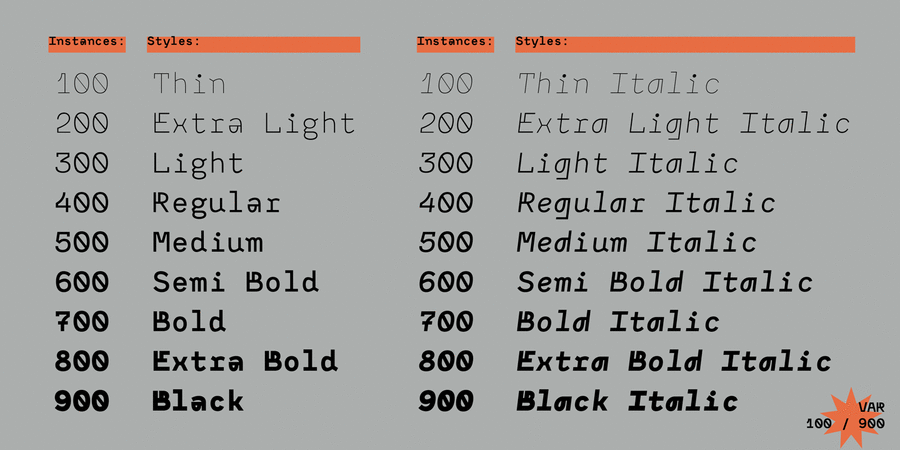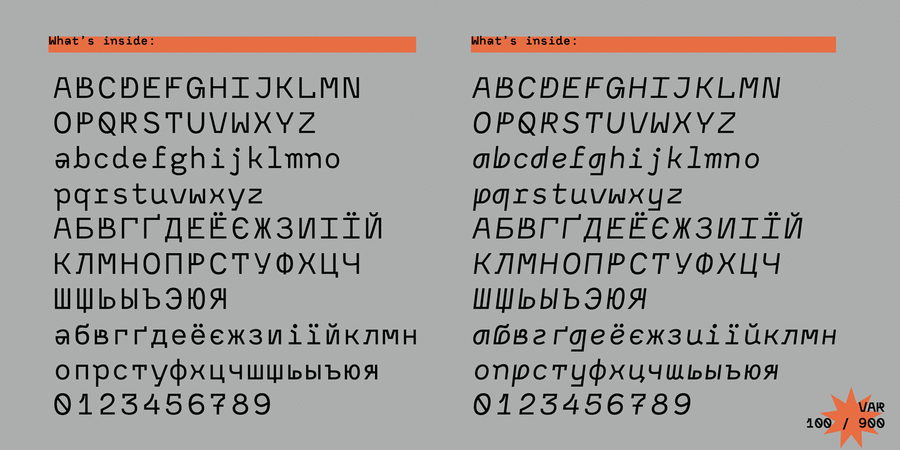
About Monofontis is a contemporary, monospaced display typeface full of ligatures and glyphs to keep your designs stylish, modern, and standing out in a crowd. Monofontis typeface has a contrasting character that combines laconic technical forms, extraordinary details, and calligraphic grace, most noticeable in Italic. As a monospaced typeface, Monofontis will be indispensable for magazine titles, headlines, and short text fragments, logos and branding, web and interface design, posters, and advertising due to its unique nature. Furthermore, Monofontis is an excellent match for a tabular design, columns, clear and rigid layouts, and programming code. Monofontis consists of 18 styles: 9 styles in the Basic family, 9 styles in Italics. Designed by Maria Weinstein with art direction of Kyrylo Tkachov in 2020.
Associations for font family MonofontisTypeface personality and character:
urban, transparent, thin, cold, glass, sharp, fragile, wire, broken, futuristic, technogenic, solid, crisp, easy, modern, machine, engineering, urbanistic, angular, strange, original, distinctive, ironic, playful, youth, interesting, flexible, industrial, steel, artificial, technically, high-quality, iron, cutting, computer, strong, architectural, rude, brutal, self-assured, military, heavy, severe, reliable, robust, electronic, party, clubbing, rectangular, stable, motivating
equipment, device, architecture, science, city, technology, sci-fi, gadget, IT specialist, IT, constructor, scheme, engineer, automation, urban studies, electronics, design, x-ray, machine tool, tool, factory, industry, power station, energy industry, mechanical engineering, airsoft, hacker, game, code, computer, programming, hardware, robot, computer game, architect, car, selfie, cubes, entertainment, night club, party, partying, cybersport, fuel, cinema Typeface associated with age: